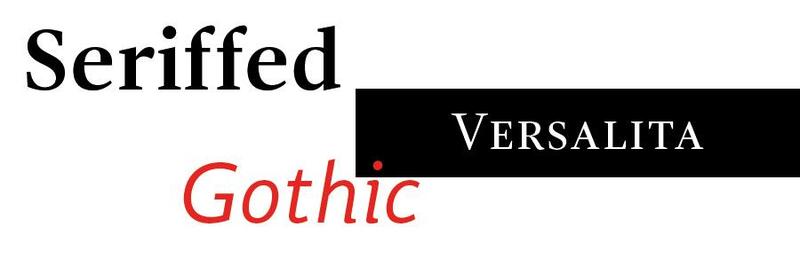
Notable free super-families
I intentionally excluded Adobe Source and Roboto, because they lack italics in some families; and GNU Free and Liberation, because they aren’t proper super-families, rather free alternatives to Microsoft’s old “web safe” fonts.
Added Adobe Source, since it now has italics for each family.
Hey, what about Alegreya? To me, it's the best free superfamily of all -- there's serif and sans serif, with proper bold, italic and small caps for both. The letterforms are beautiful, especially the serif at large sizes. I've been using them to design a series of posters at work & I've transitioned to using it on our website, catalog and to save on page-view charges. And yet, I've NEVER felt like I'd compromised.
Strangely Alegreya is entered under  sans and serif.
I guess not strange since Alegreya has both. But it is a super superfamily, as good as any paid one.
Background: I redesigned our website when our new cost-cutting CEO decided to move our design department from Adobe to free alternatives. So I had to move our website from Mrs/ Mr Eaves. Keeping with the cost-cutting approach, I tried many fonts, settling on Alegreya. At first, I thought I'd be giving up a lot, but I was shocked when I realized I PREFERRED to free font to the well-regarded paid one.
As an FYI, I also tried Source, PT and Merriweather and found them okay, but less versatile. I more or less agree with the writer's grades.
What I meant instead of it being listed once under super family it got two separate mentions.
Just an oversight. But you should be able to add it yourself if you think it needs to be listed.
A number of families in this list are already listed in either one or both “best of” lists of serif or sans serif free typeface families.